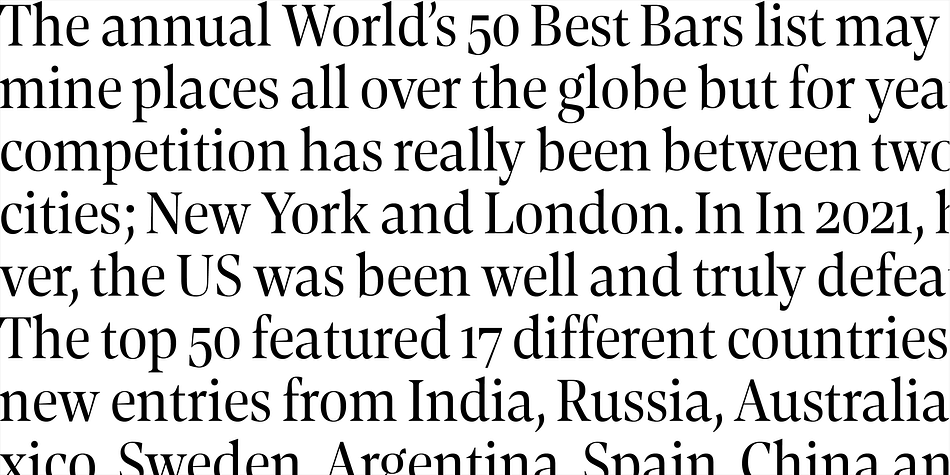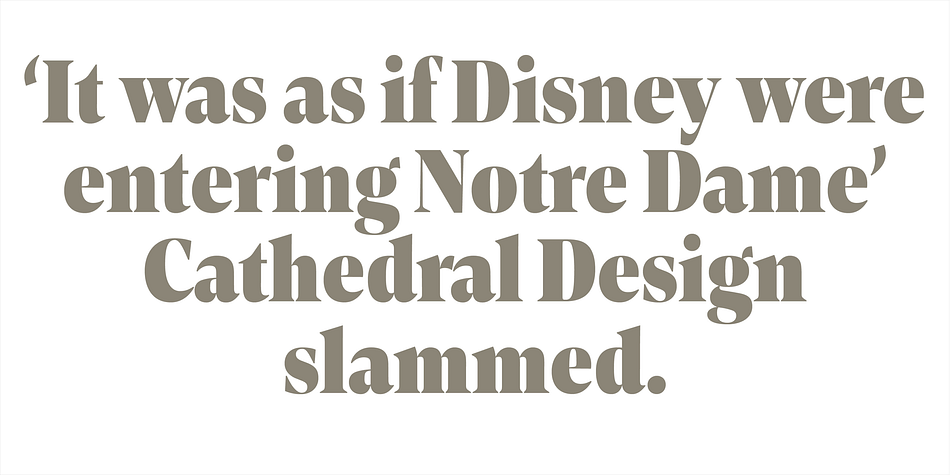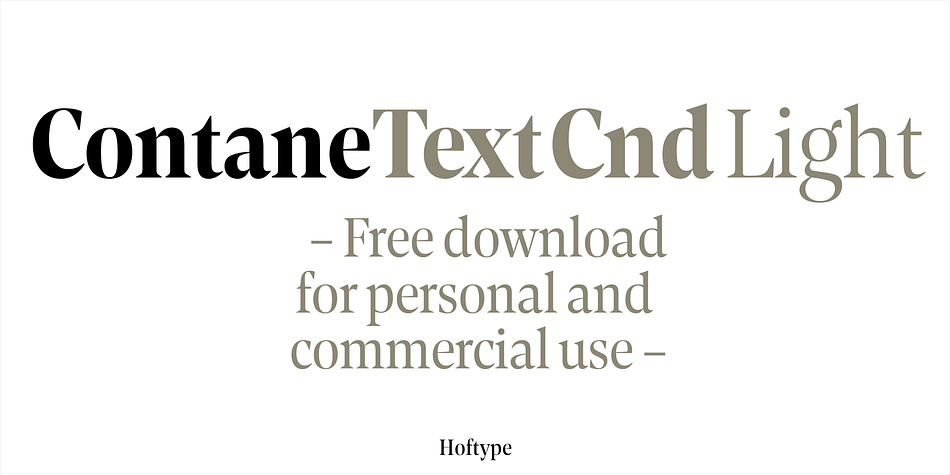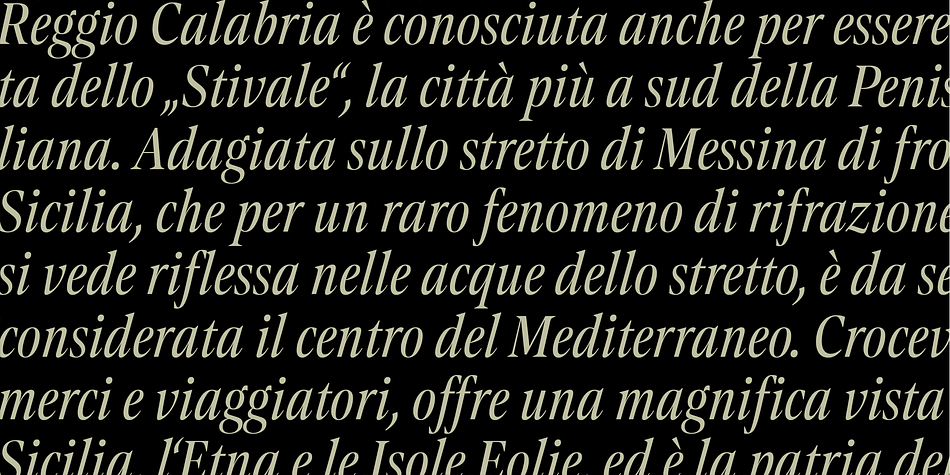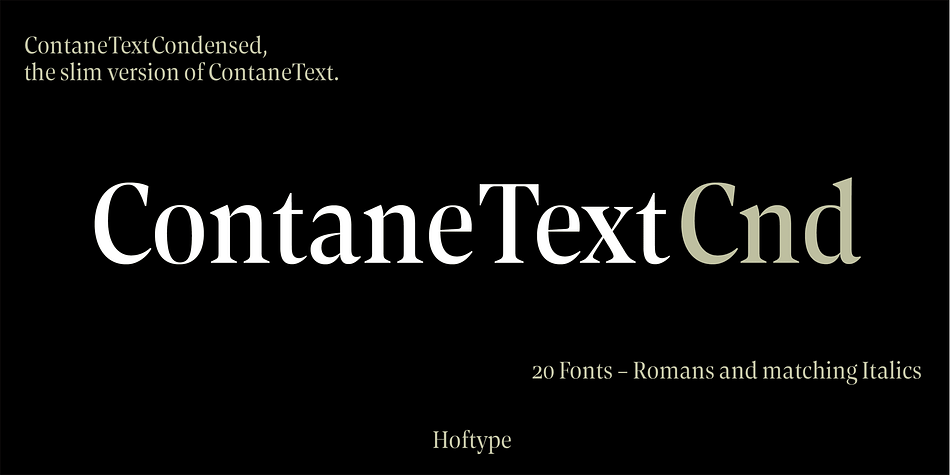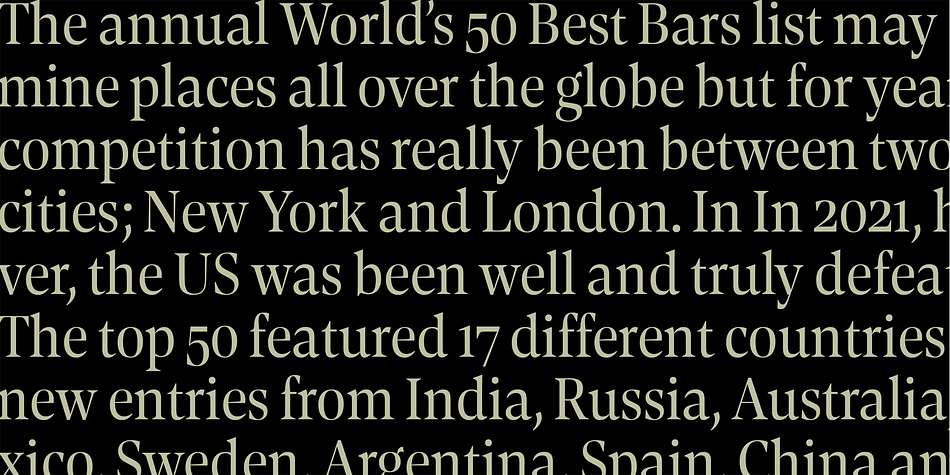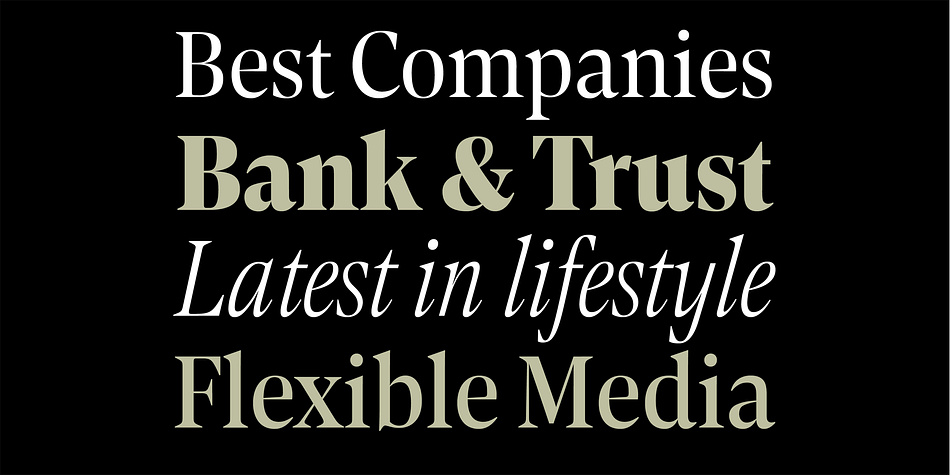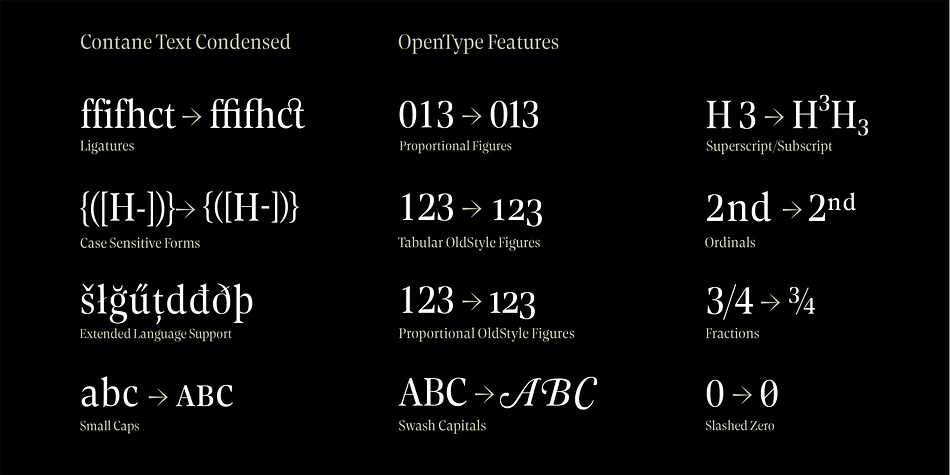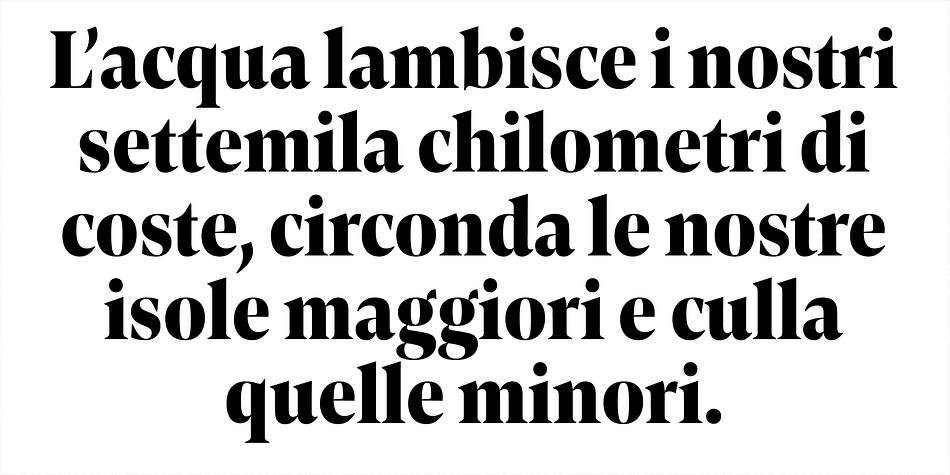
Contane Text Condensed
Designed by Dieter Hofrichter, Contane Text Condensed is a serif font family. This typeface has twenty styles and was published by Hoftype.
Contane Text Condensed is the text optimized version of Contane Condensed. More solid, more robust, it embodies the power addition to the more delicate members of  the Contane Condensed family.
Stronger hairlines and stronger serifs also make it appropriate for smaller text size applications.
Contane Text Condensed supports up to 80 languages and it’s OpenType format allows a wide range of typographic applications. 20 styles offer fine graduation of the weights. All weights contain small caps, ligatures, superior characters, proportional lining figures, tabular lining figures, proportional old style figures, lining old style figures, matching currency symbols, fraction- and scientific numerals, matching arrows and alternate characters.